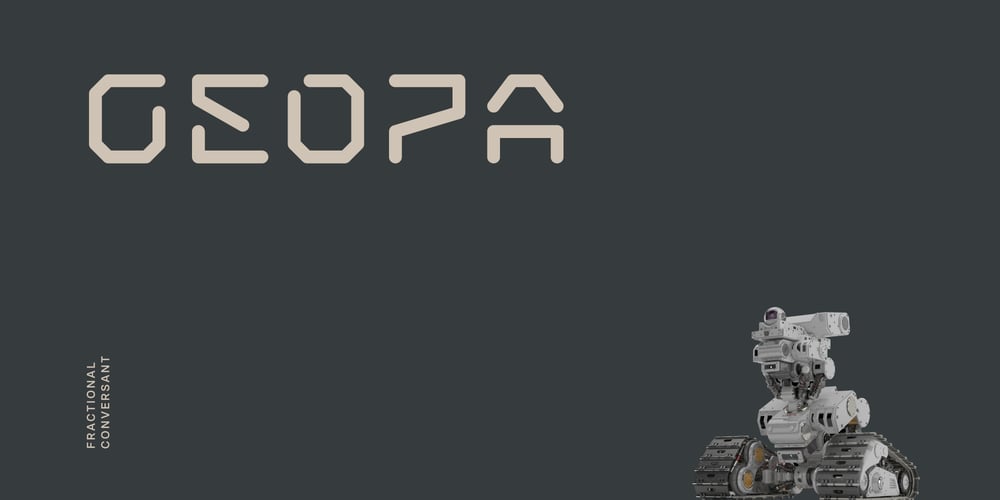
Geopa Font Family was designed by Andrew Seah and published by Baqoos. Geopa contains 4 styles and family package options. Geopa is a fractional conversant tech sans apt for headline, editorial, branding, packaging, printed materials and typographic applications. 200+ glyphs with ligatures and fractions.